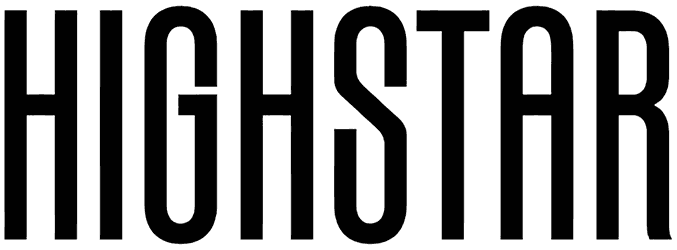
Highstar Font
Setting a sans-serif font like this item can help you impress countless observers. This modern and chic condensed font has tall and bold characters that can be matched with different topics. Set the Highstar font on your next layouts, such as a fashion poster or a business card for a manager, and reveal your unique taste.